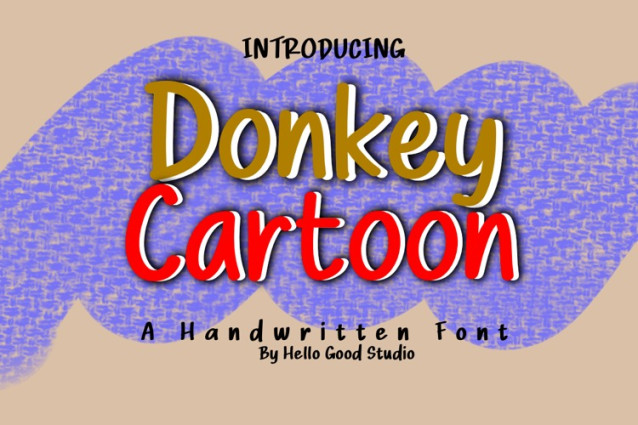
Donkey Cartoon Font
Donkey Cartoon Font is a simple and friendly handwritten font. Its natural and unique style makes it incredibly fitting to a large pool of designs. The only limit is your imagination!